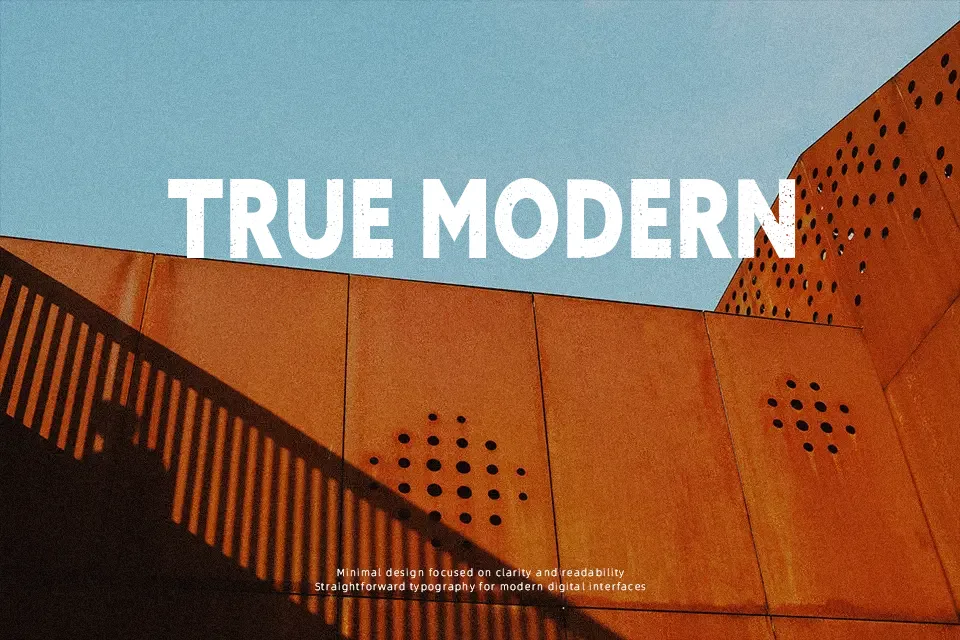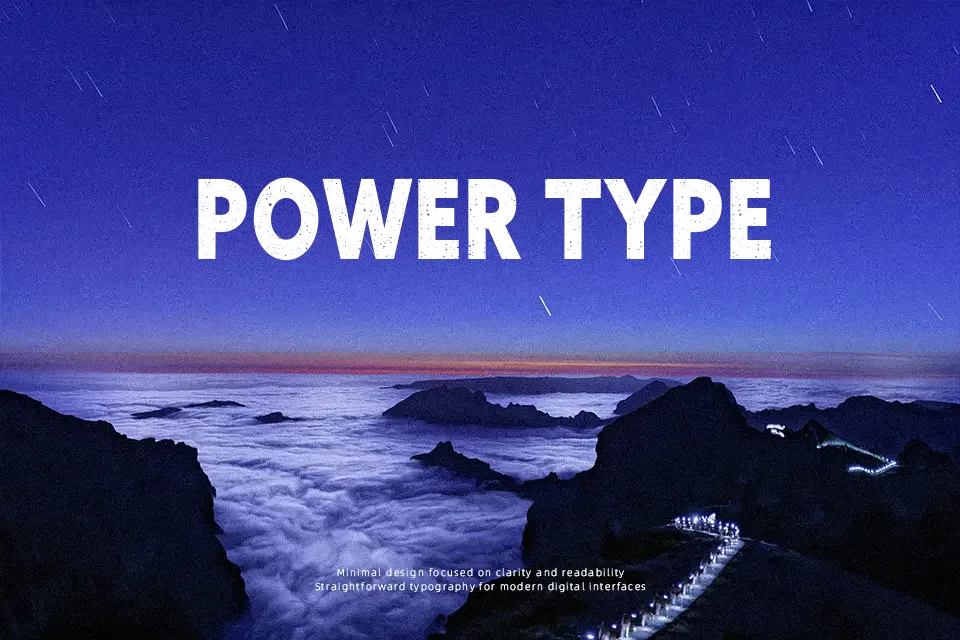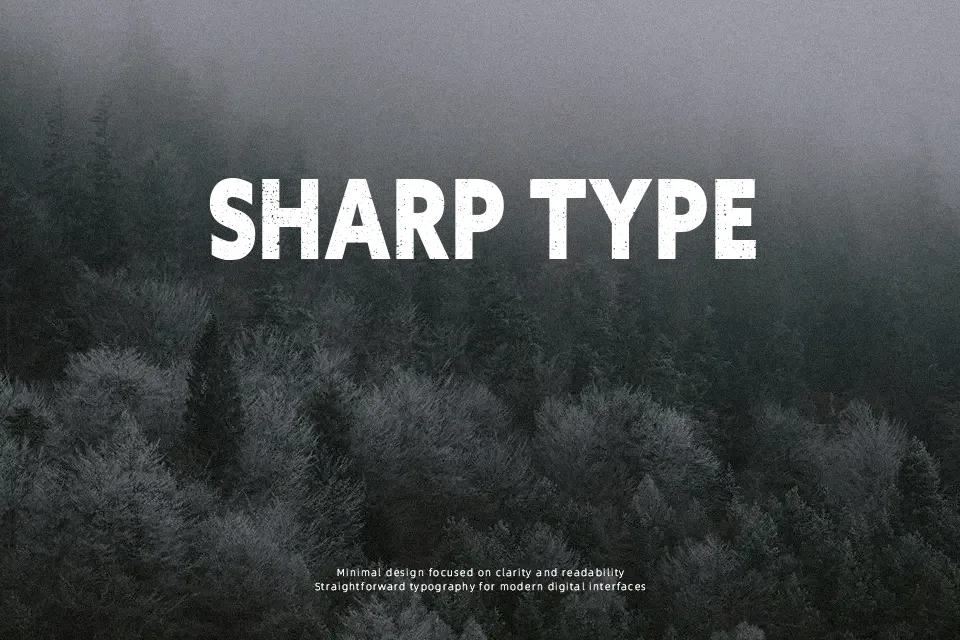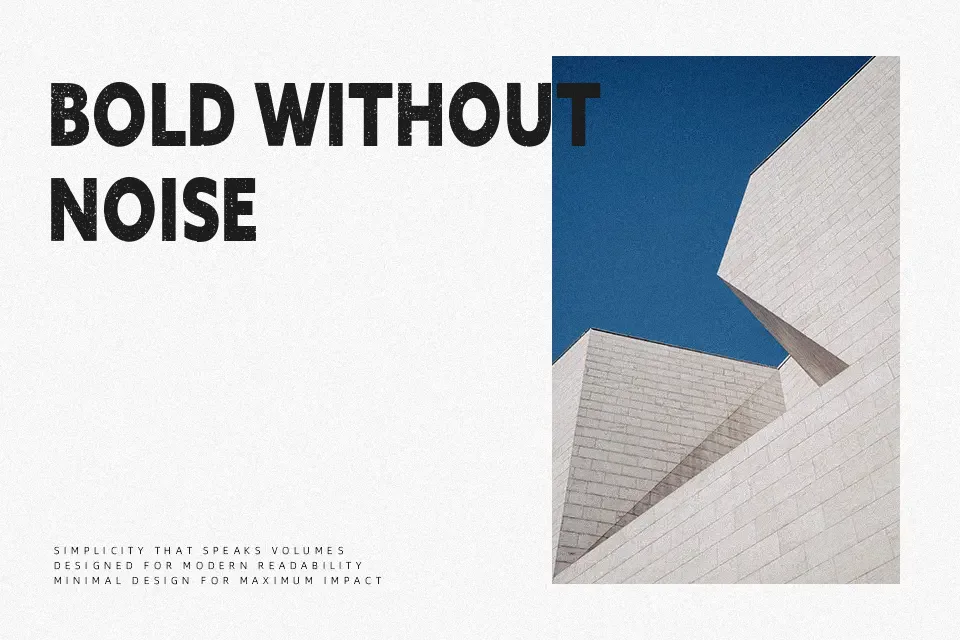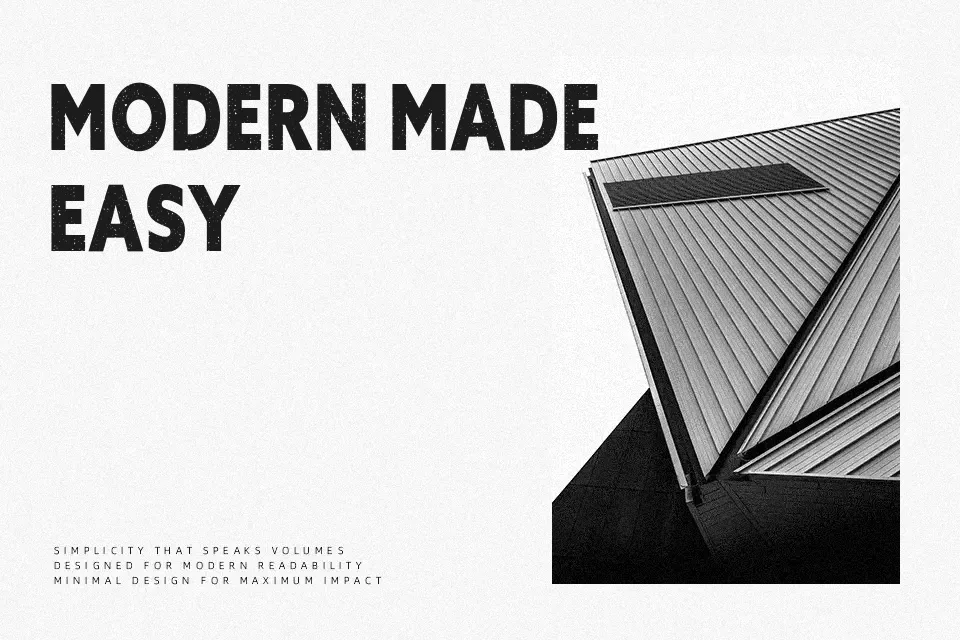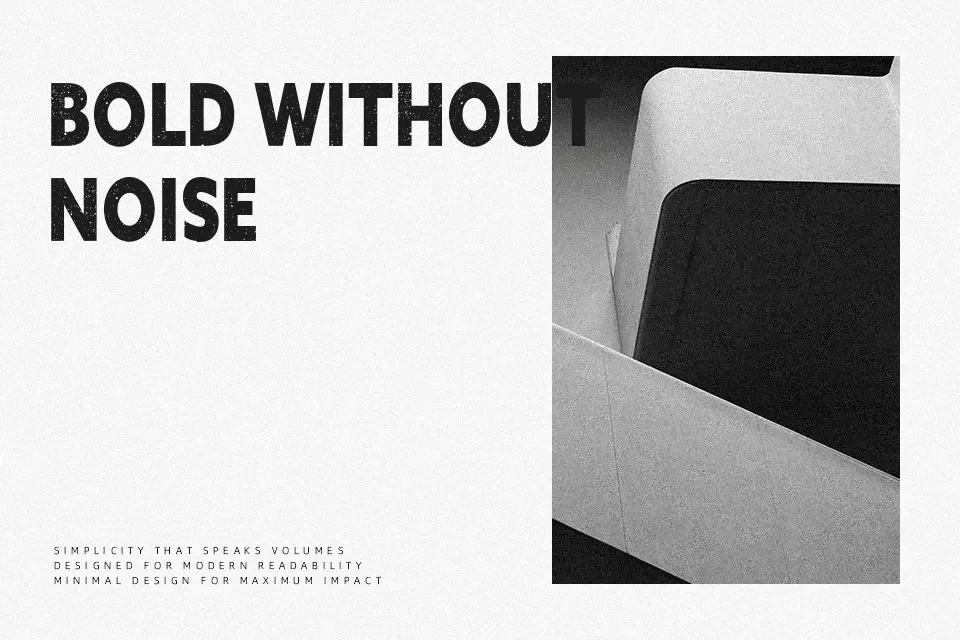
Vandal Font
Vandal Font presents a weathered sans serif structure built with solid, heavy strokes and rugged outer contours that evoke a raw industrial texture. The design relies on compact letter spacing and uniform proportions across its uppercase forms, maximizing visual weight and impact in prominent headline environments. While balanced character widths preserve strong recognition in short display compositions, the dense eroded silhouettes make the typeface less suitable for long paragraphs. Decorative details and rough distress patterns become significantly less effective at smaller sizes, confirming this typeface performs best in punchy posters, music covers, and assertive display layouts.
Best For: urban apparel graphics, music festival posters, skateboard deck designs, streetwear logo branding
Not Ideal For: long paragraph text, mobile interface labels, technical manuals, corporate annual reports